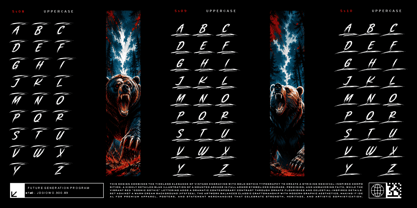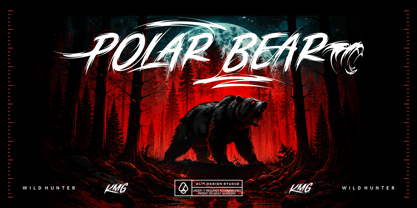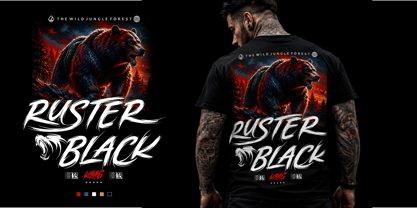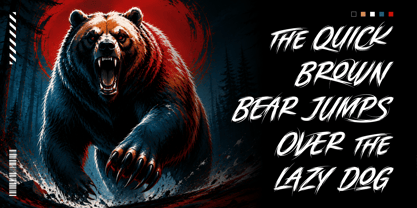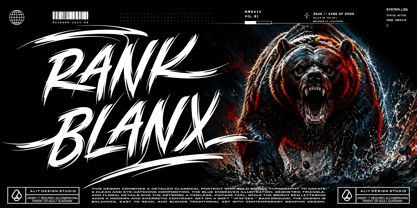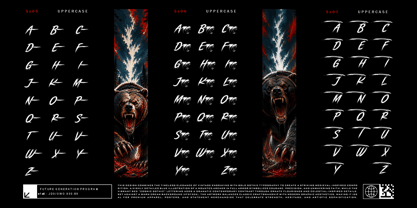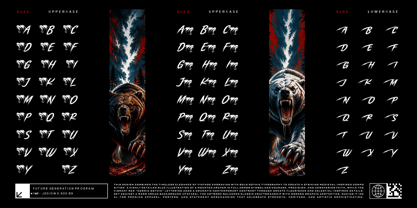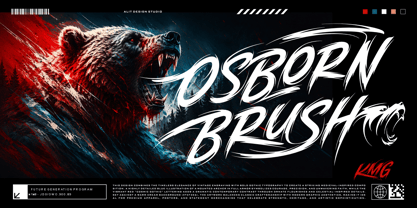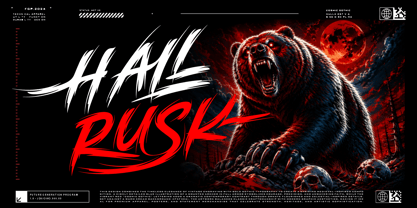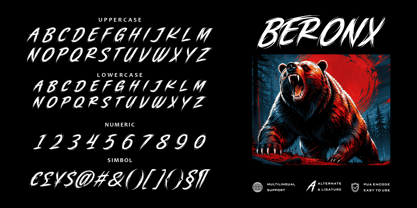
Brutally Ursa
Brutally Ursa - Aggressive Brush Typeface
Unleash the beast in your next design project with Brutally Ursa, a wildly dynamic and aggressive brush typeface. Hand-crafted with fast, bold strokes and authentic dry-brush textures, this font is designed to deliver raw energy and unapologetic impact. Whether you are aiming for a gritty streetwear aesthetic, intense sports branding, or striking poster designs, Brutally Ursa commands attention.
Brutally Ursa isn't just about looks; it’s a typographic powerhouse. Packed with an incredible 1,119 glyphs, this typeface offers endless customization possibilities. It features a massive collection of Stylistic Sets (SS01 - SS12) and an extensive range of custom ligatures, allowing you to create typographic compositions that look genuinely hand-painted and unique to your brand.
Perfectly suited for apparel design (t-shirts and hoodies), extreme sports merch, gaming logos, band merchandise, movie titles, and bold advertising campaigns.
Key Features:
• 1,119 Total Glyphs: A massive character set for maximum versatility.
• Extensive Stylistic Sets (SS01 - SS12): Add wild swashes, aggressive tails, and dynamic alternate letterforms to perfectly balance your typography.
• Custom Ligatures: Dozens of carefully crafted ligatures (e.g., TH, FI, ST, CH) to ensure seamless and natural handwriting flow.
• Multilingual Support: Broad language support for global reach.
Bring a raw, untamed edge to your typography with Brutally Ursa!